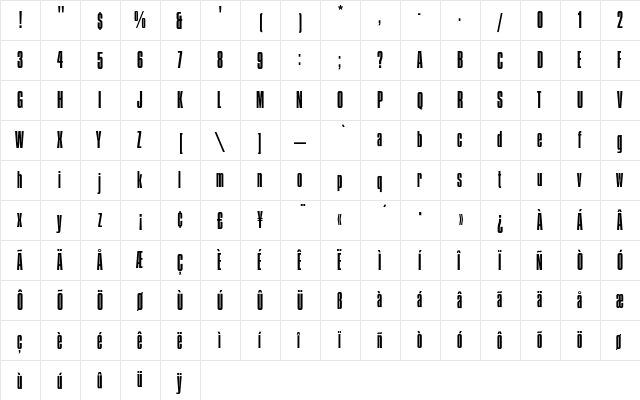
CompactaEF Light
Design Context for CompactaEF Typeface
CompactaEF is a composed and adaptable typeface that performs quietly and consistently across a wide range of design contexts. Its slender proportions lend an understated elegance to any composition. Its narrow stance lets it pack a punch even in space-constrained designs.